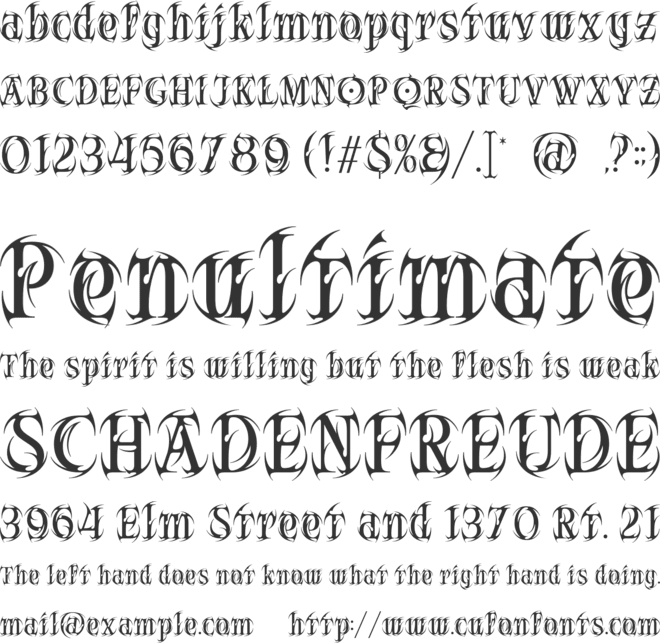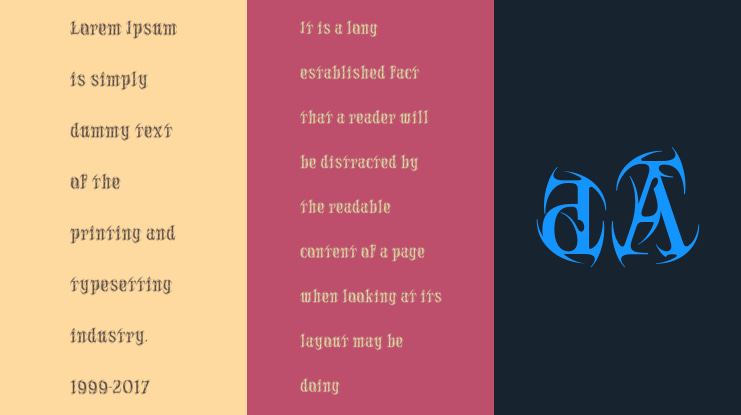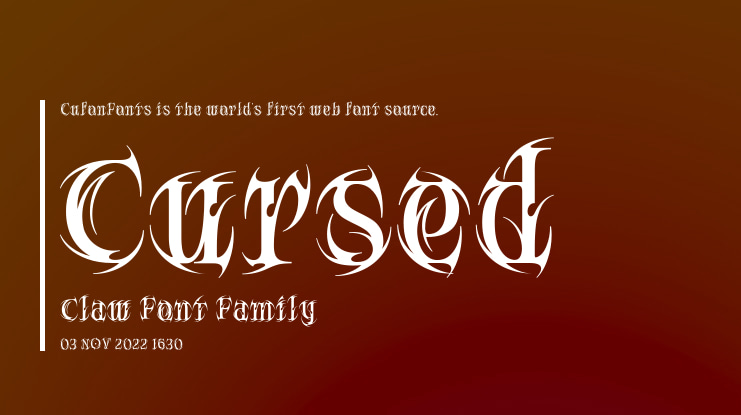
Cursed Claw Font
Cursed Claw – Aggressive Tribal Gothic Typeface
Unleash the Beast: Where Ancient Myth Meets Modern Streetwear.
The Story Introduce Cursed Claw, a typographic embodiment of darkness and dominance. This isn't just a font; it is a weapon for your design arsenal. Inspired by the raw aggression of "Gothical Streetwear" and the intricate sharp edges of tribal tattoos, Cursed Claw evokes the spirit of ancient dragons. Every stroke is carved with a "dragon-shaped edge," making it look venomous, violent, and undeniably captivating.
The Aesthetic Cursed Claw bridges the gap between medieval blackletter traditions and the rebellious energy of modern underground culture. It is perfectly engineered for designs that demand attention—from death metal album covers and grim fantasy branding to high-end streetwear merchandise.